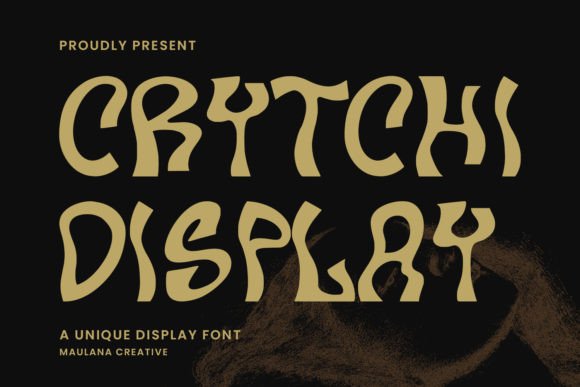
Crytchi Font: The Ultimate Display Font for Creative Expression
In the world of typography, fonts play a crucial role in conveying messages, expressing emotions, and creating visual identities. Among the numerous fonts available, Crytchi Font stands out as a truly unique and exceptional display font. Designed to inspire creativity and bring innovative ideas to life, Crytchi Font has the potential to elevate your designs to new heights.
The Story Behind Crytchi Font
Crytchi Font is the brainchild of talented designers who aimed to create a font that would push the boundaries of conventional typography. With a focus on uniqueness and creativity, the designers carefully crafted each letterform to ensure that Crytchi Font would be a standout in any design project. The result is a font that exudes elegance, sophistication, and a touch of playfulness.
Key Features of Crytchi Font
Crytchi Font boasts several key features that make it an incredibly versatile and desirable font:
- Unique Letterforms: Each letter in Crytchi Font has been meticulously designed to showcase a distinctive character, making it perfect for headlines, titles, and creative expressions.
- Display Font: Crytchi Font is specifically designed as a display font, making it ideal for large-scale applications such as posters, billboards, and digital displays.
- High Versatility: Crytchi Font can be used across various design projects, from branding and advertising to packaging and digital media.
- Elegant and Sophisticated: The font’s refined lines and curves give it an air of sophistication, making it suitable for high-end designs and luxury brands.
What Makes Crytchi Font So Special?
Crytchi Font’s uniqueness stems from its masterful design, which combines artistic flair with technical precision. Here are some factors that contribute to its exceptional appeal:
- Hand-Crafted Details: Every letterform in Crytchi Font has been hand-crafted to ensure a level of detail and precision that sets it apart from other fonts.
- Expressive Typography: Crytchi Font is designed to convey emotions and express ideas, making it an excellent choice for designers seeking to create a specific atmosphere or mood.
- Scalability: Crytchi Font remains legible and visually appealing even at large sizes, making it perfect for display applications.
How to Use Crytchi Font Effectively
To maximize the impact of Crytchi Font, consider the following tips:
- Pair with Neutral Fonts: Combine Crytchi Font with neutral fonts to create visual contrast and emphasize key messages.
- Experiment with Colors: Crytchi Font looks stunning in bold colors; experiment with different hues to find the perfect match for your design.
- Use for Headlines and Titles: Crytchi Font is optimized for headlines and titles; use it to create attention-grabbing text that draws the reader’s eye.
Crytchi Font in Digital Design
In the digital realm, Crytchi Font can be used to create stunning visual effects in various applications:
- Web Design: Use Crytchi Font to create engaging headlines, buttons, and other UI elements that capture users’ attention.
- Social Media Graphics: Crytchi Font is perfect for creating eye-catching social media graphics, such as Facebook posts, Instagram stories, and Twitter headers.
- Digital Advertising: Crytchi Font can help your digital ads stand out in a crowded online landscape.
Crytchi Font in Print Design
Crytchi Font is equally effective in print design, where it can be used for:
- Posters and Flyers: Create striking posters and flyers that grab attention with Crytchi Font.
- Brochures and Catalogs: Use Crytchi Font to add visual interest to brochures, catalogs, and other marketing materials.
- Business Cards: Elevate your business cards with Crytchi Font, making them a memorable representation of your brand.
Crytchi Font is an incredibly unique display font that has the potential to bring your creative ideas to life. With its masterful design, elegant lines, and high versatility, Crytchi Font is an excellent addition to any design project. Whether you’re a graphic designer, marketer, or entrepreneur, Crytchi Font can help you create stunning visual effects that leave a lasting impression.